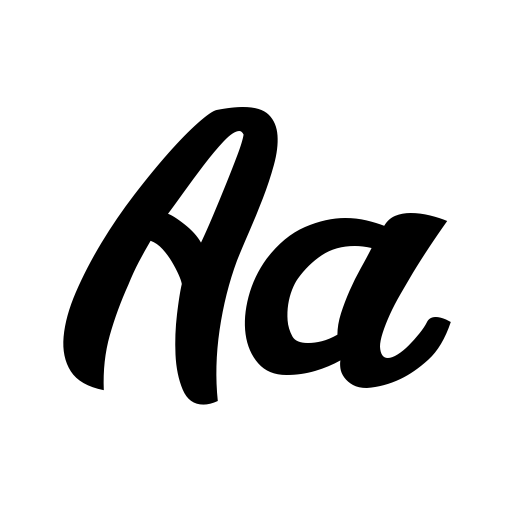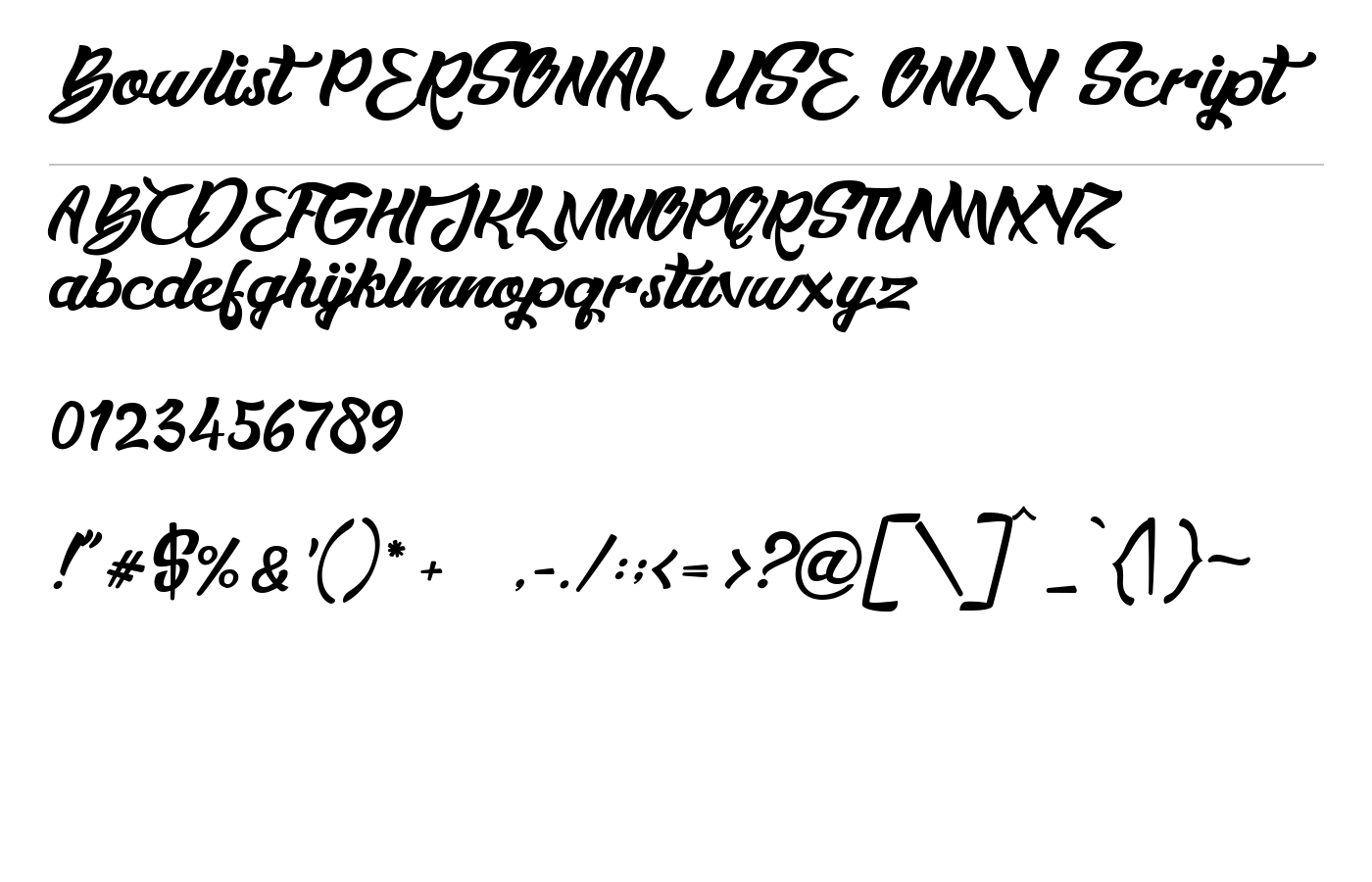
Bowlist is a lively and expressive script font featuring a bold weight and dynamic, flowing letterforms that feel handwritten yet polished. Its distinctive curls and variations in stroke thickness create a playful and energetic vibe, making it ideal for creative branding, invitations, and eye-catching headlines. This font works well where a personal, artistic touch is desired to convey warmth and personality.
Bowlist PERSONAL USE ONLY Font
About Bowlist PERSONAL USE ONLY Font
| Font family | Bowlist PERSONAL USE ONLY Font |
| Designer | Hendra Maulia |